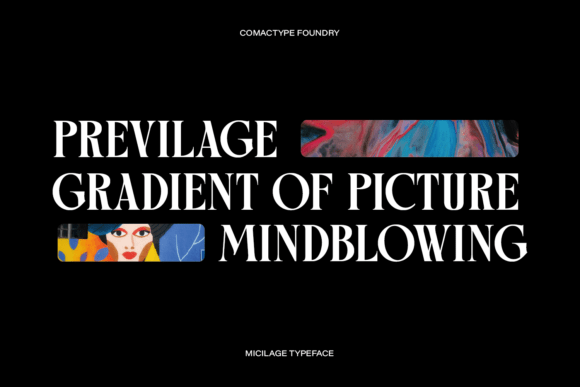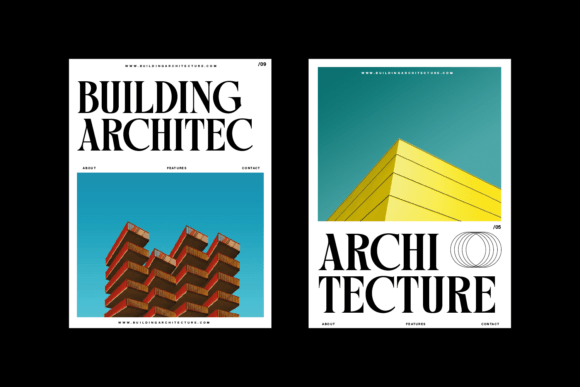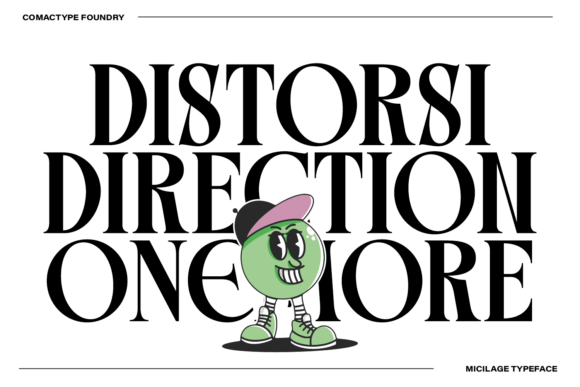
Introduction to Micilage Font
Have you ever stared at a blank canvas, waiting for that perfect font to strike inspiration? For designers, finding the right typography can be the difference between a good design and a great one. And when it comes to making a statement, few fonts can match the elegance and sophistication of the Micilage Font.
Designed for large-scale use in headlines, logos, and posters, this serif display font is a treasure trove of high-quality design elements. With its unique decorative elements and dynamic variations, the Micilage Font exudes a classic, luxurious, and bold impression that’s sure to elevate any creative project. Whether you’re working on a logo, brochure, or social media campaign, this design resource is a must-have for designers looking to add a touch of sophistication to their work.
Key Features of Micilage Font
- High-quality, vector-based design for a high-resolution display, perfect for a creative project.
- Size: The font family includes 6 styles with varying font sizes and weights.
- Unique characteristics: Micilage Font features a modern, elegant design with intricate details and a wide range of customization options.
Honest Review: Micilage Font
I recently had the opportunity to work with the Micilage Font, and I must say it’s been a game-changer for my design projects. This high-quality font is perfect for any creative project that requires a unique touch.
One of the standout features of the Micilage Font is its versatility. I’ve used it for everything from logo design to social media graphics, and it always delivers. The font is incredibly easy to use, and its transparent background makes it a breeze to work with.
- Easy to use and customize
- Transparent background for seamless integration
- Perfect for design resources like logo design and social media graphics
- Not suitable for large-scale body text due to its unique style
- May require additional formatting to achieve desired look
Overall, I’m thoroughly impressed with the Micilage Font. Its high-quality design and versatility make it a valuable addition to any design resource. I’d highly recommend it for any creative project that requires a unique touch.
Micilage Font is perfect for creating titles, headings, and quotes in your design projects. It’s also great for use in social media graphics, posters, and flyers. With its high-quality design and transparent background, you can easily combine the text with other design elements to create a unique and eye-catching design resource.